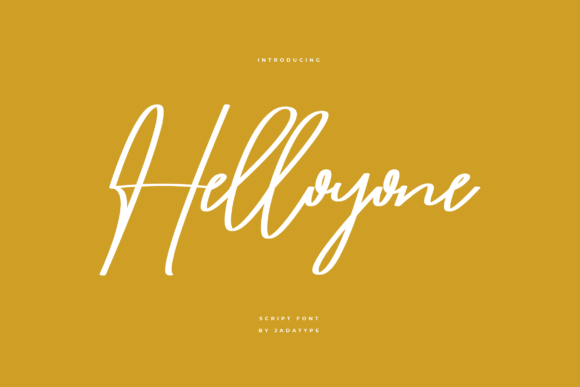
Introducing Helloyone Font, the perfect script font with a Signature Style that will take your designs to new heights! Created by the talented team at jadatype, this font is designed to captivate and inspire. Whether you're designing a t-shirt, working on a branding project, or creating content for social media, Helloyone is the ultimate choice.
With its unique and eye-catching design, Helloyone Font adds a touch of elegance and sophistication to any project. Imagine the impact of your electronic signature with this font - it will leave a lasting impression on your clients and make your documents stand out from the crowd. Say goodbye to boring and predictable fonts, and embrace the beauty of Helloyone.
This font is more than just visually stunning. It is also incredibly versatile, allowing you to experiment and create unique designs that truly reflect your personality and style. Whether you're going for a modern, edgy look or a classic and timeless feel, Helloyone Font has got you covered.
But what truly sets Helloyone Font apart is its ability to evoke emotions and connect with your audience on a deeper level. With its fluid strokes and graceful curves, this font exudes confidence, elegance, and a touch of playfulness. It will effortlessly draw attention and leave a lasting impression on anyone who lays eyes on it.
Don't settle for ordinary fonts that fail to make an impact. Helloyone Font is the perfect choice for those who strive for excellence and want to make a statement. It is a font that speaks volumes, conveying professionalism, creativity, and a commitment to quality.